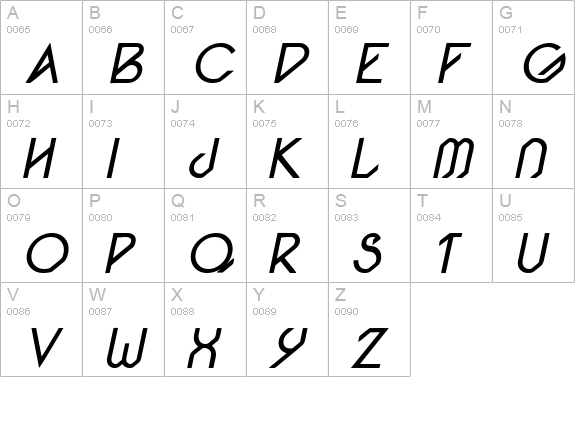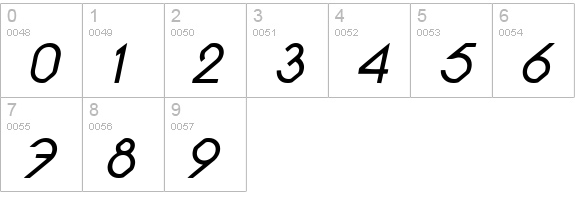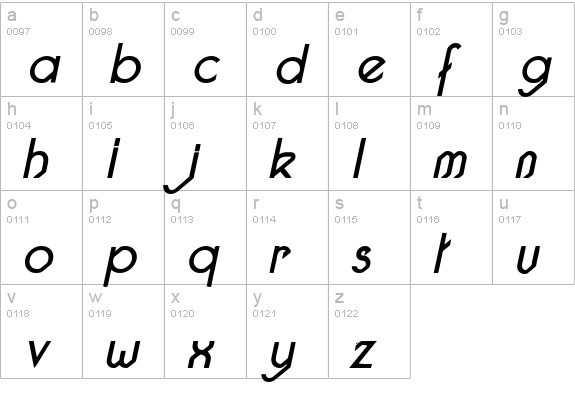
Pacotilleital regular is the standard, neutral variant in the Pacotilleital typeface family \xE2\x80\x94 well suited to general body text, paragraphs, and standard typographic work.
Pacotilleital regular font is a versatile and stylish typeface perfect for a wide range of design projects. Its sleek and modern look makes it ideal for branding, advertising, and editorial designs. The font features clean lines and a contemporary feel that will give your work a professional and polished appearance. What sets Pacotilleital regular font apart is that it is available for free download at FontsMarket.com. This means you can easily access this high-quality font without any cost, making it a valuable resource for designers looking to enhance their projects with a sophisticated and elegant typeface. Whether you're working on a logo, poster, website, or any other design project, Pacotilleital regular font will help you achieve a polished and modern look. Download it for free today and elevate your designs with this sleek and stylish typeface.